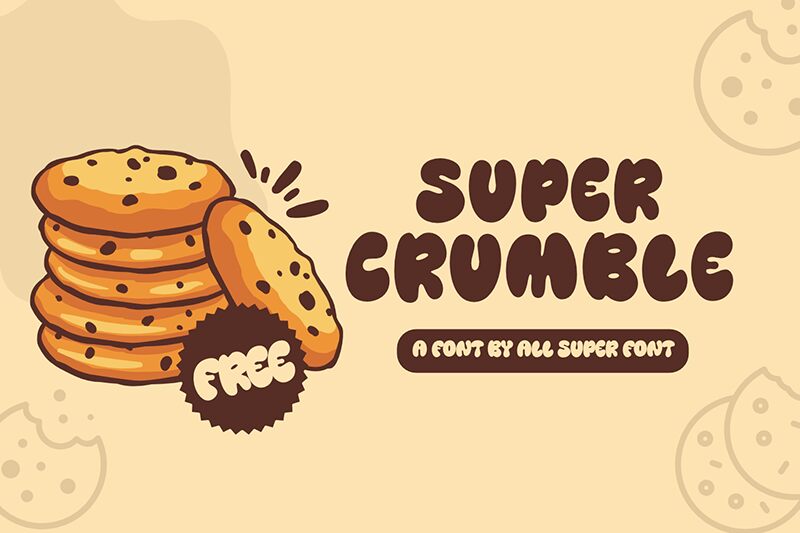
Super Crumble
Super Crumble font by fsuarez913 is a display cartoon face where a bold visual appearance grabs all the attention. It makes use of rounded edges and extreme softness alongside perfectly balanced forms. The casual, friendly, and youthful attitude delivered keeps readers entertained and engaged.
This free font package can be applied to apparel designs, book covers for kids, toys packaging, posters of animated movies or comics, T-Shirts designs, greeting cards covers or insides. It also fits logos of candy shops or everyday related products by render them charming and eye-catching.